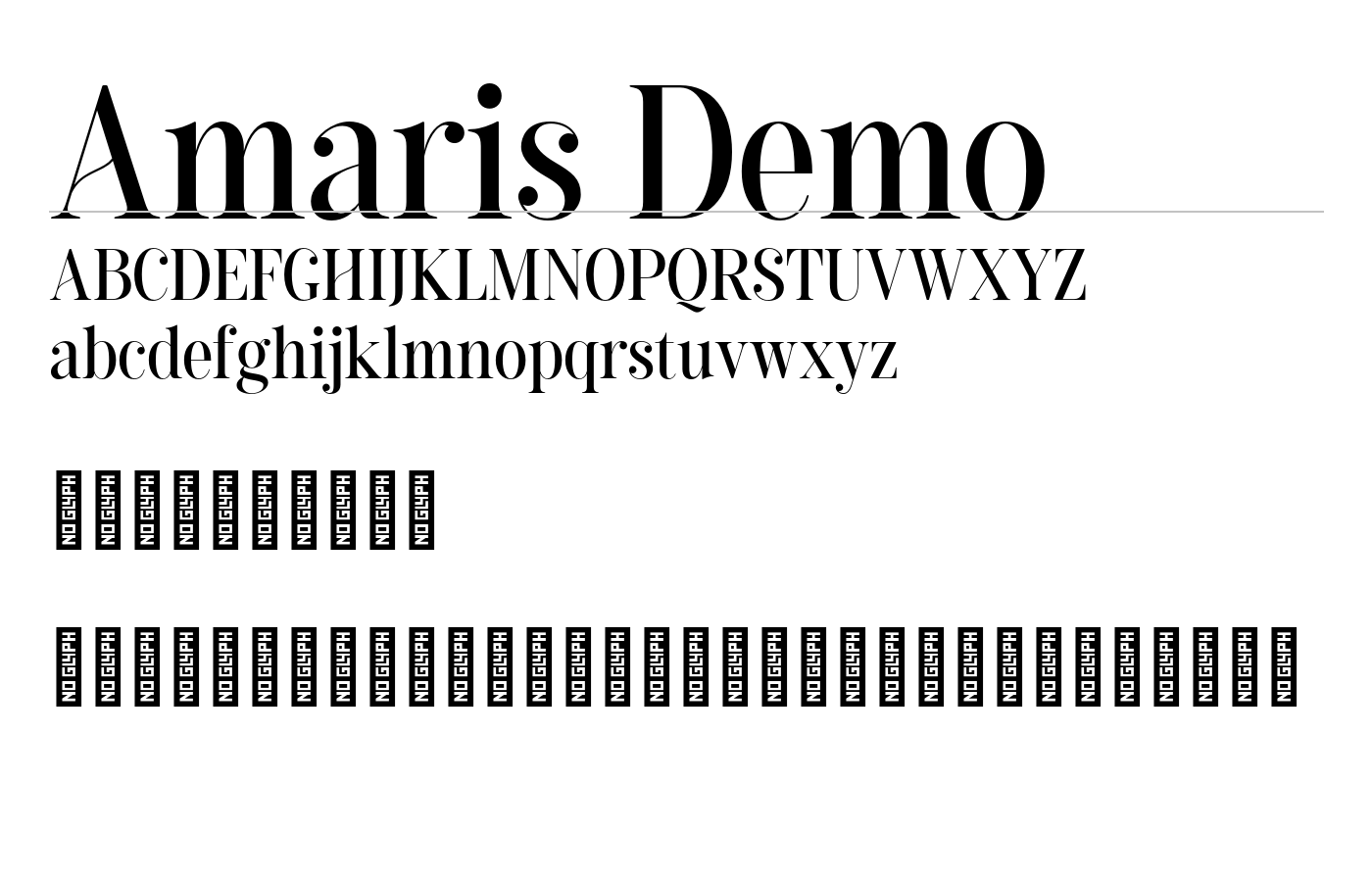
Amaris Demo is an elegant serif font with a modern Didone style, featuring high contrast between thick and thin strokes and delicate, sharp serifs. Its tall x-height and refined, slightly condensed letterforms give it a sophisticated and luxurious feel, making it perfect for fashion branding, editorial design, and stylish headlines where a touch of classic elegance is desired. This font’s graceful curves and distinctive details communicate a sense of refinement and timelessness, ideal for upscale, high-end projects.
Amaris Demo Font